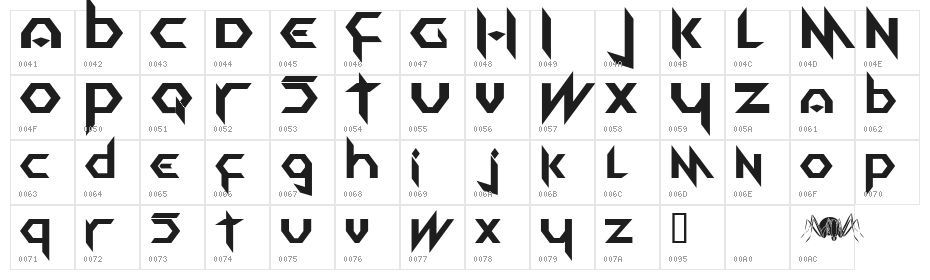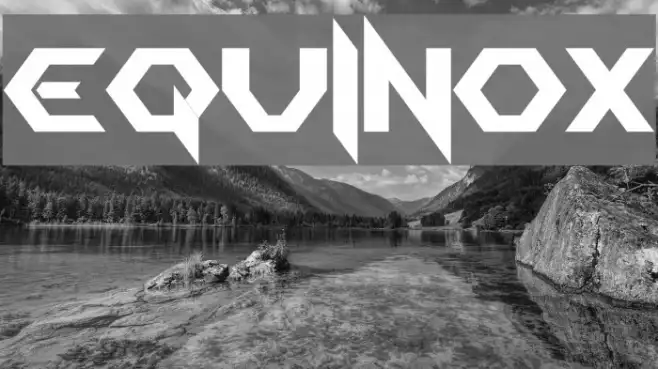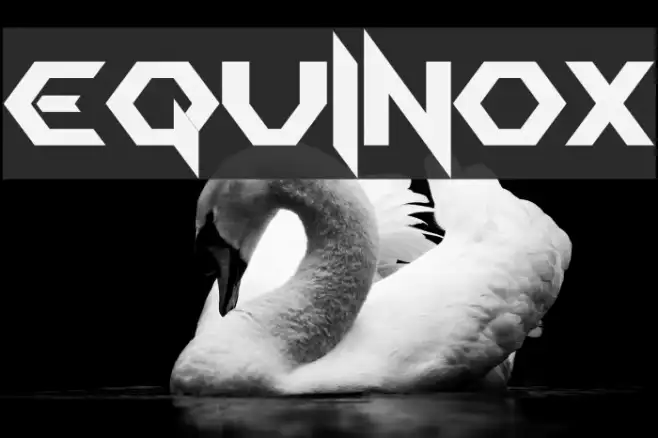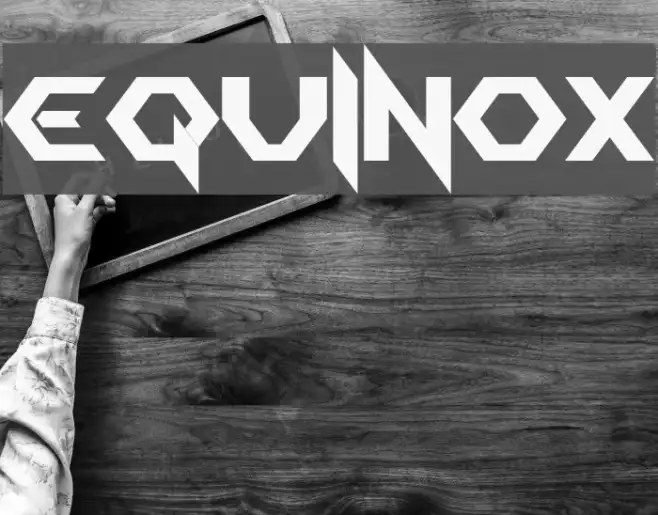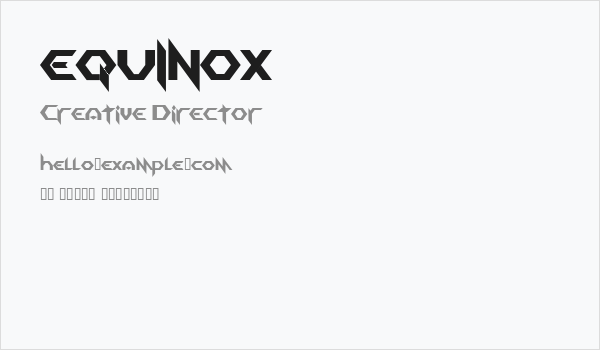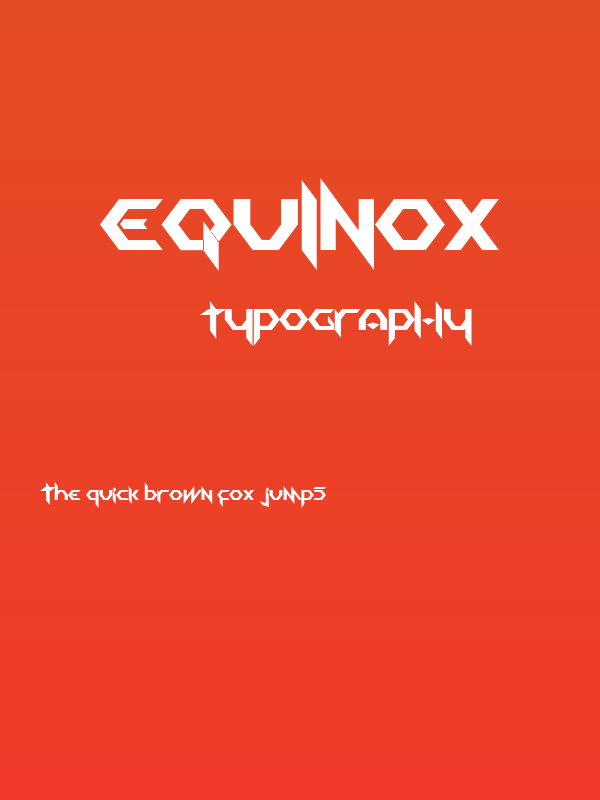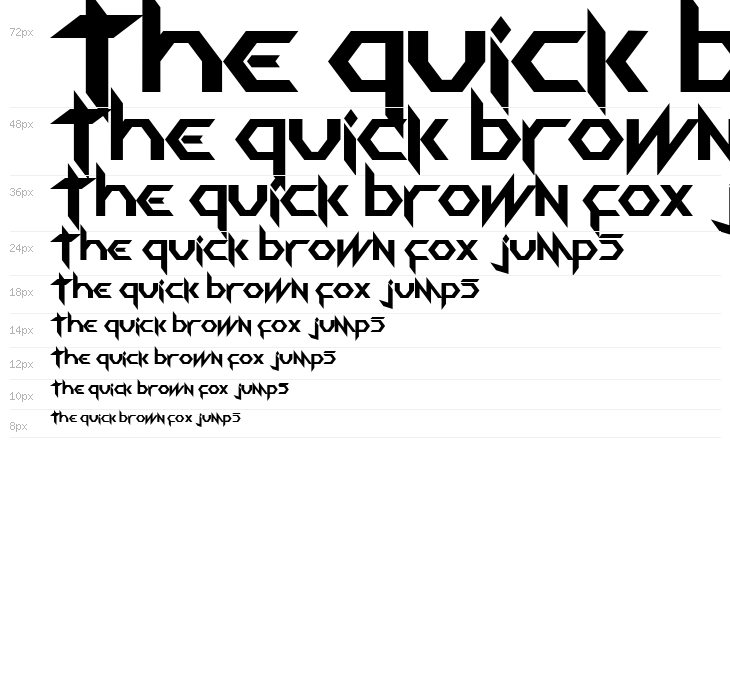
EQUINOX Font
EQUINOX Description
This font features a bold and futuristic design with sharp, angular lines and geometric shapes. The characters are constructed with a consistent thickness, creating a uniform and cohesive appearance. The uppercase and lowercase letters share a similar structure, emphasizing the font's modern and edgy aesthetic. The numerals and special characters maintain the same angular style, ensuring a seamless integration across all text elements. This font's unique design makes it stand out, ideal for projects that require a strong visual impact.
| Proposed Projects | Ideal for sci-fi themed designs, video game titles, tech branding, and futuristic posters. |